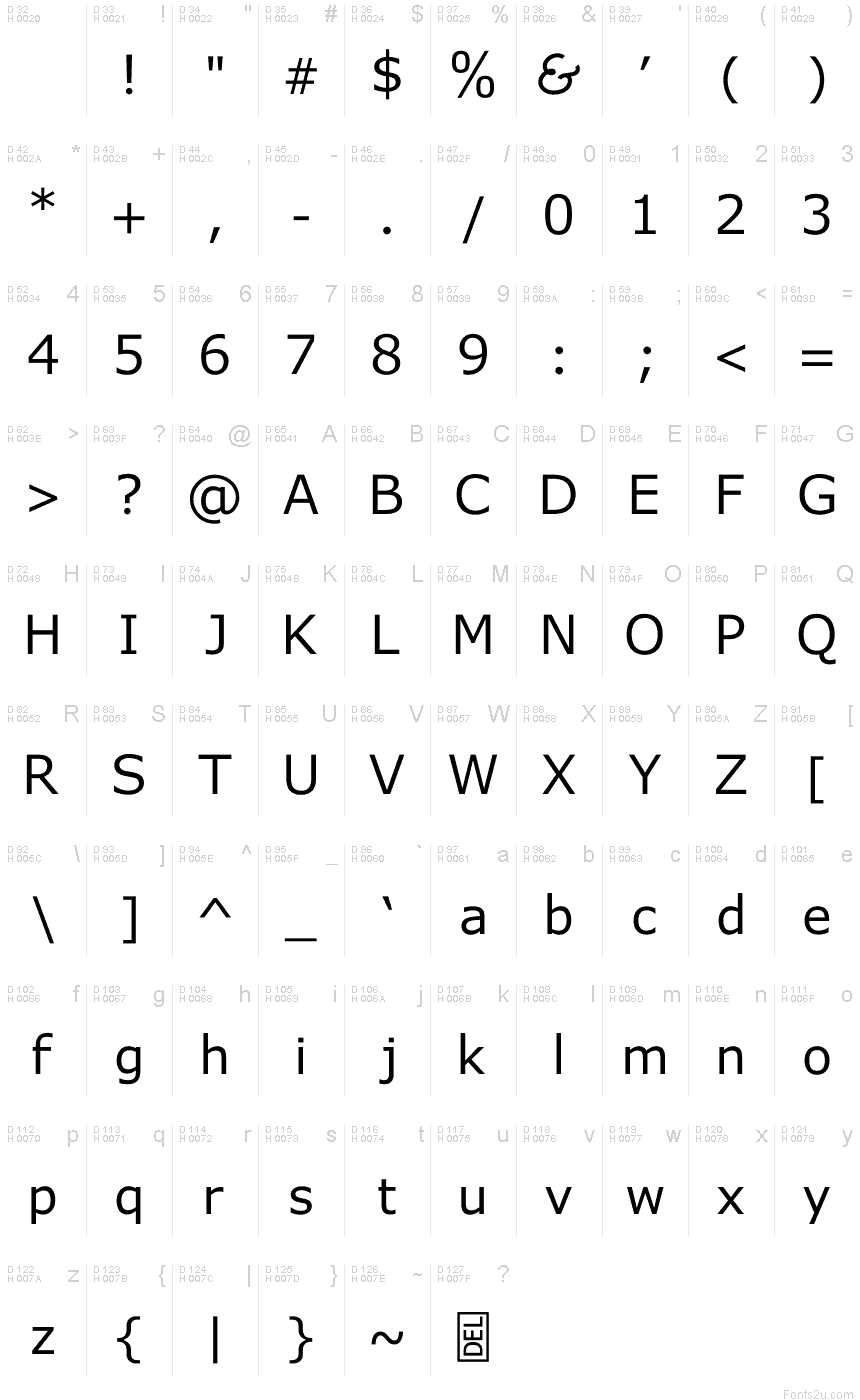
Aroania
In 1927, Victor Julius Scholderer (1880 – 1971), on behalf of the ‘Society for the Promotion of Greek Studies’, got involved in choosing and consulting the design and production of a Greek type called ‘New Hellenic’ cut by the Lanston Monotype Corporation. He chose the revival of a round, and almost monoline type which had first appeared in 1492 in the edition of Macrobius, ascribable to the printing shop of Giovanni Rosso (Joannes Rubeus) in Venice. Aroania is a modern recast of Victor Scholderer’s ‘New Hellenic’ font, on the basis of Verdana. The font covers the Windows Glyph List, Greek Extended, various typographic extras and is available in regular and bold. The regular style of the font also covers IPA Extensions, Ancient Greek Numbers, Byzantine and Ancient Greek Musical Notation and several Open Type features (Case-Sensitive Forms, Small Capitals, Subscript, Superscript, Numerators, Denominators, Fractions, Old Style Figures, Historical Forms, Stylistic Alternates, Ligatures).